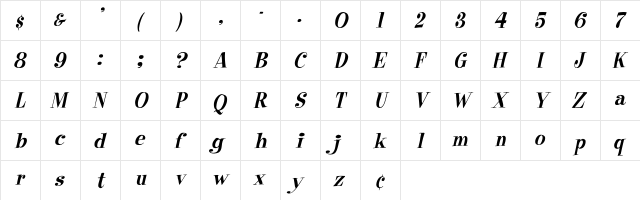
PixieFont Th Italic Italic
Design Context for PixieFont Th Italic Typeface
PixieFont Th Italic is a composed and adaptable typeface that performs quietly and consistently across a wide range of design contexts. Its italic angle brings a sense of urgency and motion to the letterforms.
Pro Tip: Use PixieFont Th Italic for emphasis, pull quotes, and subheadings where its slanted energy can add rhythm to the layout.